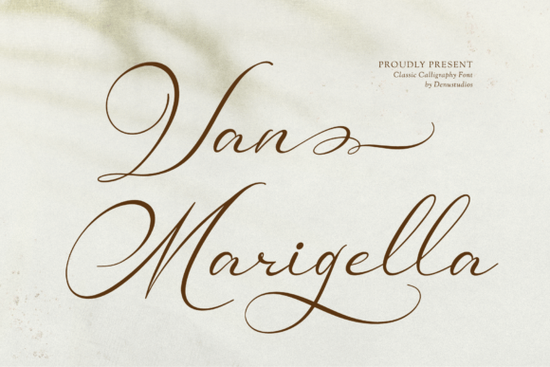
If you're looking for a script font that feels both timeless and quietly confident like the kind you’d see on a hand-poured candle label or an engraved wedding suite Van Marigella Font is worth your attention. It’s not flashy or overly ornate, but it carries weight through its rhythm and refinement: smooth cursive strokes, looping capitals, and delicate swashes that trail like ribbon. Designers and small business owners who work with premium aesthetics think artisanal skincare, fine jewelry, or bespoke stationery often reach for fonts like this when they need elegance without pretension.
What makes Van Marigella different from other calligraphy fonts?
Many script fonts lean heavily into either vintage formality or modern minimalism. Van Marigella sits comfortably between them. Its medium-contrast letterforms avoid the starkness of high-contrast scripts (which can feel stiff in small sizes) while still offering enough definition to stay legible at 14pt or larger. The capital letters have generous, open loops especially noticeable in letters like “B,” “L,” and “M” and the lowercase terminals end with subtle, ribbon-like flourishes. These aren’t just decorative; they guide the eye smoothly across words, giving even short phrases a lyrical flow.
You’ll also notice how evenly the baseline sits not perfectly rigid, but gently anchored, like handwriting that’s been practiced until it feels second nature. That consistency helps it hold up well across print formats: embossed business cards, foil-stamped gift boxes, or even embroidered fabric labels where clarity matters.
Where does it work best in real projects?
This isn’t a one-size-fits-all font, and that’s part of its strength. It shines where tone and texture matter as much as readability:
- Wedding stationery: Save-the-dates, menus, and place cards gain quiet sophistication without competing with floral motifs or textured paper.
- Cosmetic and fragrance branding: Works especially well for brands that emphasize natural ingredients, slow craftsmanship, or poetic naming like “Lune & Thyme” or “Cerise Nocturne.”
- Social media quotes: Paired with soft neutral backgrounds, short affirmations or product taglines feel intentional and calm not hurried or algorithm-optimized.
- Print-on-demand products: Tote bags, ceramic mugs, and art prints benefit from its graceful proportions, which scale cleanly without losing character.
It’s less suited for dense body text or interfaces requiring fast scanning so don’t use it for website navigation or legal disclaimers. But within its lane, it performs with quiet reliability.
How does it compare to similar fonts on Creative Fabrica?
If you’ve already explored script fonts like Stylish Handwriting, you’ll notice Van Marigella has more restraint it doesn’t rely on exaggerated bounce or tight spacing to stand out. Compared to Sweet Apricot, it trades playfulness for poise; while Honey Notes leans sweet and rounded, Van Marigella keeps its curves taut and intentional. Dellanor Script shares some swash energy, but Van Marigella’s baseline rhythm feels more grounded. And unlike Heartberry, which embraces whimsy and variation, Van Marigella delivers consistency ideal when brand cohesion matters more than stylistic surprise.
Van Marigella includes standard OpenType features like ligatures and alternate characters especially useful for avoiding awkward letter collisions (like “Th” or “Wa”). Try enabling contextual alternates in your design app for smoother word shapes. Also, test it at actual print size early: sometimes swashes look elegant on screen but need slight trimming for small-format items like sticker labels or soap tags.
Lastly, pair it thoughtfully. A clean sans-serif like Montserrat or Poppins works well for supporting text no need to over-design the contrast. Let Van Marigella carry the voice; everything else stays quietly supportive.
- ✅ Use the included uppercase swash alternates sparingly just for initials or key words
- ✅ Pair with a neutral, highly legible sans-serif for body copy or captions